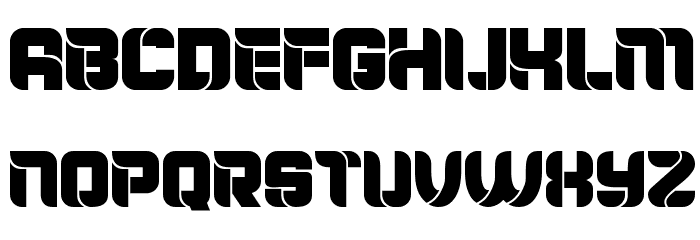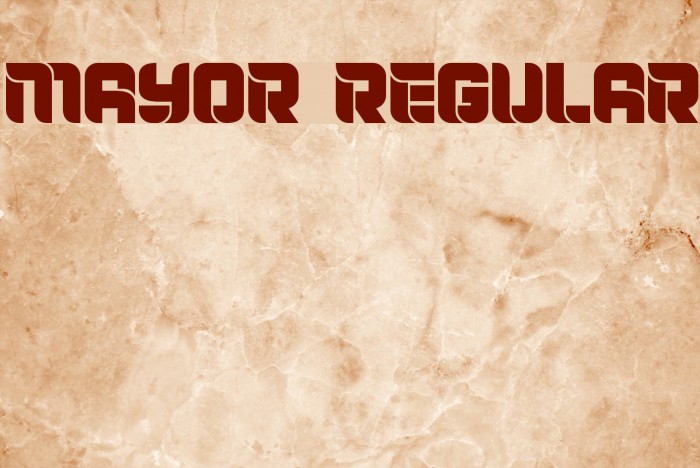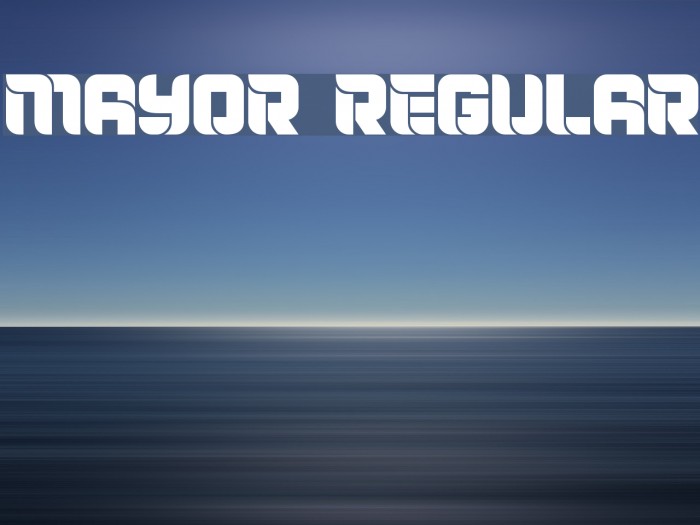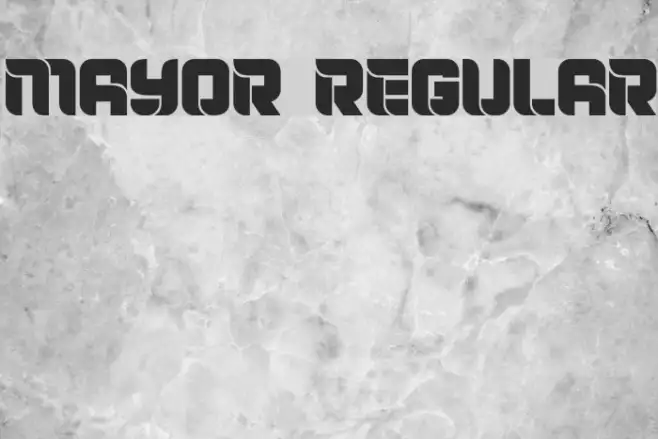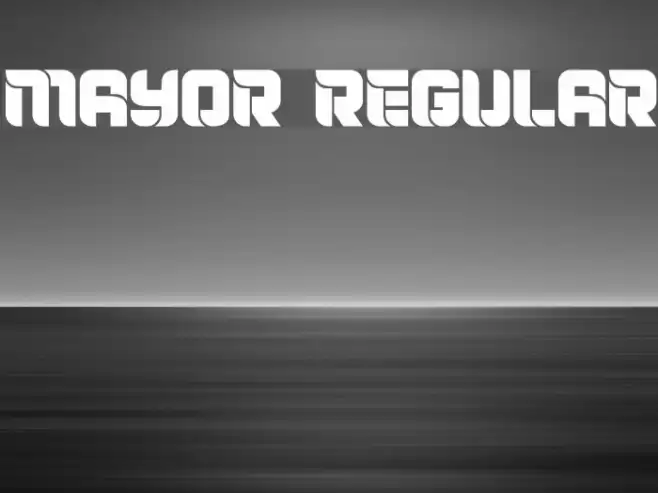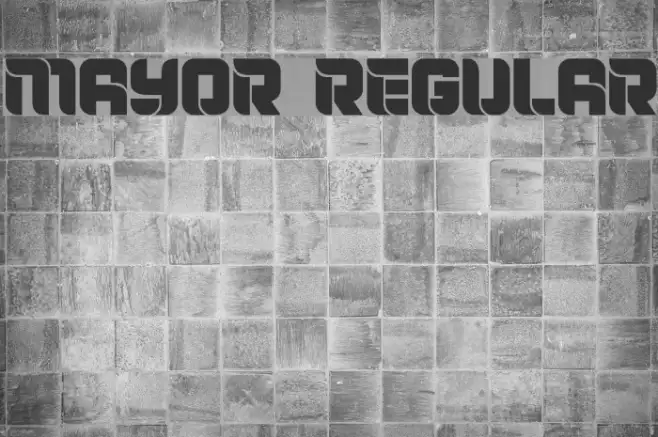
Mayor Regular Font
This font features a bold, geometric style with a strong presence. The characters are constructed with thick, uniform strokes, creating a sense of solidity and modernity. The design incorporates sharp angles and straight lines, giving it a futuristic and industrial feel. The uppercase and lowercase letters maintain a consistent weight, while the numerals and special characters follow the same robust design. The overall appearance is striking and impactful, making it suitable for attention-grabbing applications.
A bold, geometric font with a modern, industrial aesthetic.
- Proposed Projects: Ideal for branding, posters, headlines, and any project requiring a strong visual impact.